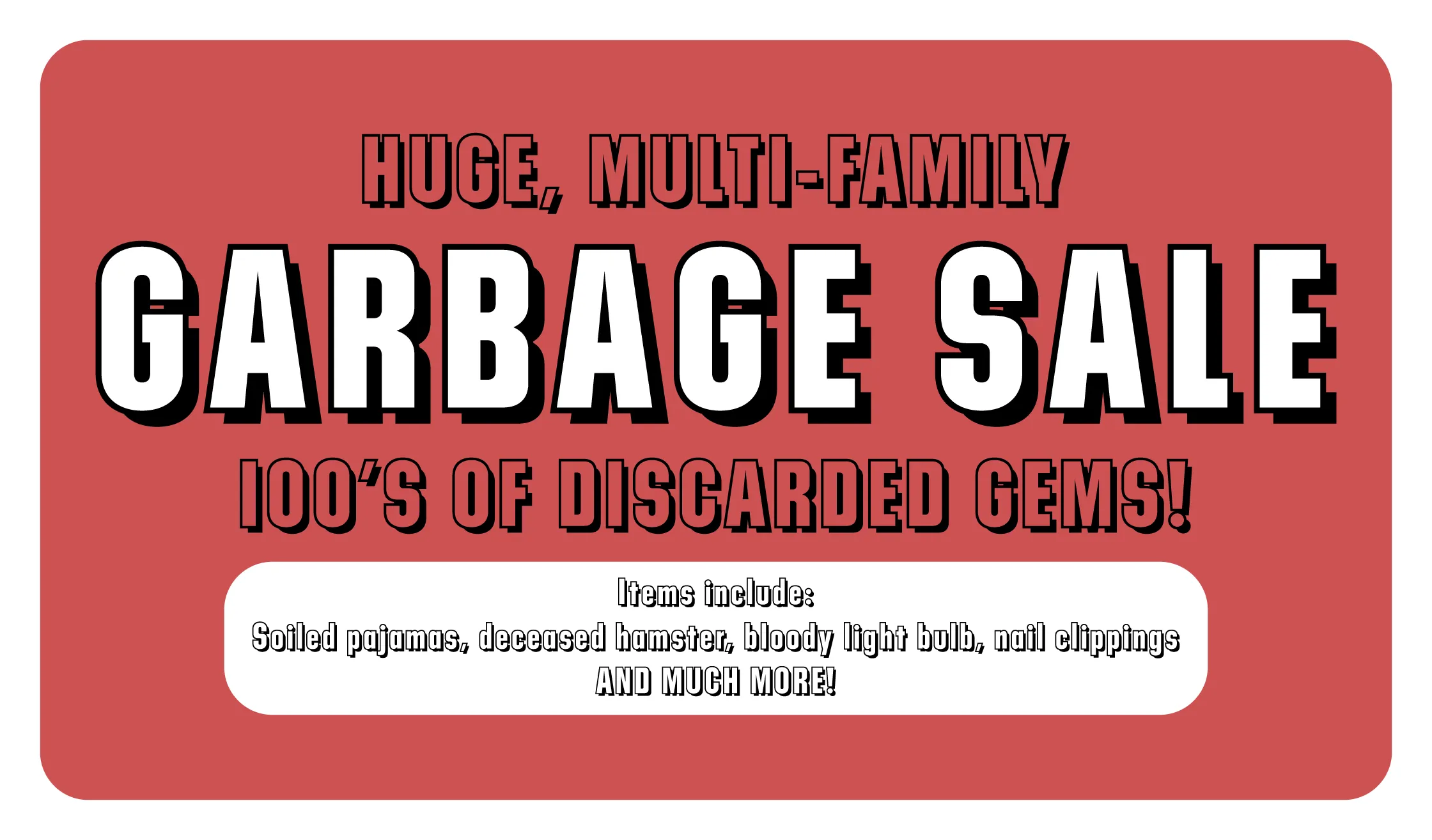
Filmotype Vanity Font
The Filmotype Vanity Font is perfect for vintage beauty advertising, classic fashion magazine headers, retro cosmetics packaging, elegant mid-century branding, sophisticated vintage signage, classic Hollywood movie titles, glamorous 1950s designs, luxury vintage communications, period-accurate fashion campaigns, and distinguished retro elegance projects.
What makes the Filmotype Vanity Font so exciting is its perfect embodiment of mid-century glamour with authentic Filmotype sophistication that creates an unmistakable connection to the golden age of elegant advertising and sophisticated commercial design. This glamorous typeface features refined Filmotype construction, elegant character proportions, and sophisticated mid-century design elements that perfectly capture the essence of vintage vanity culture and classic beauty advertising excellence. The font's vanity personality and Filmotype elegance make it an exceptional choice for luxury brands, vintage beauty companies, and sophisticated design projects seeking to communicate glamour, elegance, and authentic mid-century sophistication with genuine period credibility.
The Filmotype Vanity Font family includes glamorous variations and elegant alternates, featuring sophisticated Filmotype weights, vanity-inspired character options, and mid-century luxury styling elements. Each variation maintains the signature glamorous appeal while offering different levels of elegant expression and Filmotype sophistication, giving designers extensive creative possibilities for crafting refined vintage communications and sophisticated brand personalities that honor mid-century beauty and fashion traditions.
This exceptional Filmotype Vanity Font Free Download represents the ultimate vintage elegance typography solution for designers who need authentic glamorous aesthetics that resonate with vintage fashion enthusiasts and mid-century luxury design communities. Whether you're developing vintage beauty brand identities, creating elegant fashion materials, or designing sophisticated retro communications, this versatile glamorous font delivers distinguished results that connect with audiences seeking genuine vintage sophistication and authentic Filmotype elegance.
The sophisticated vintage characteristics of Filmotype Vanity Font showcase masterful elegant typography preservation, with each letter featuring genuine Filmotype construction elements and mid-century glamour details that enhance its sophisticated credibility and vintage authenticity. The font's comprehensive character set includes uppercase and lowercase letters, numerals, elegant punctuation, and vanity symbols, ensuring complete functionality for diverse vintage luxury projects and international glamorous applications.
Expertly designed for both digital and print vintage elegance applications, this remarkable font maintains its Filmotype character and glamorous heritage across all sizes and formats. From large-scale vintage beauty displays to detailed elegant reproductions, Filmotype Vanity Font performs exceptionally while preserving its distinctive sophisticated personality and authentic mid-century vanity appeal.